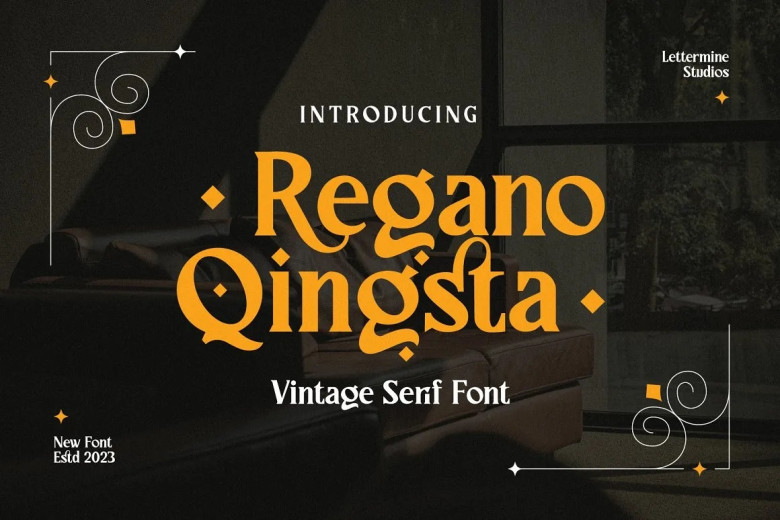
Regano Qingsta Font
Regano Qingsta is an eye-catching and versatile serif designed to add sophistication and modernity to your project, be it food or fashion related or celebrating birthdays, weddings or engagements – this font will always provide the ideal accompaniment.
Regano Qingsta Vintage Serif instantly draws the eye, taking your designs to new levels. Its modern yet vintage-inspired Vintage Serif style instantly grabs attention and elevates them.
Regano Qingsta Serif Font